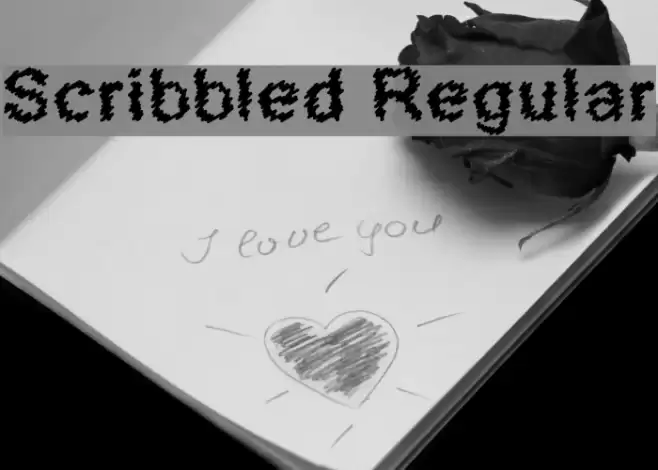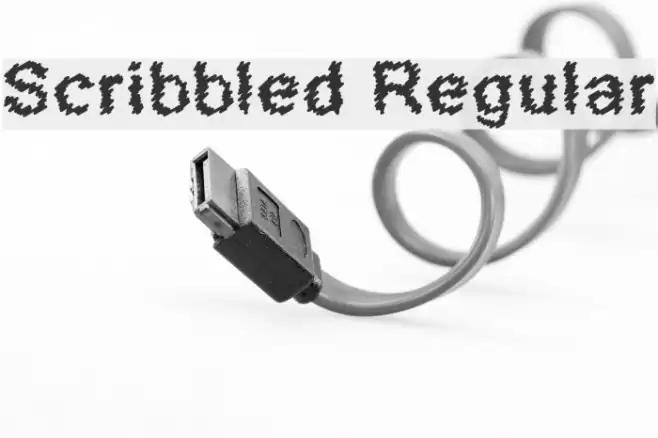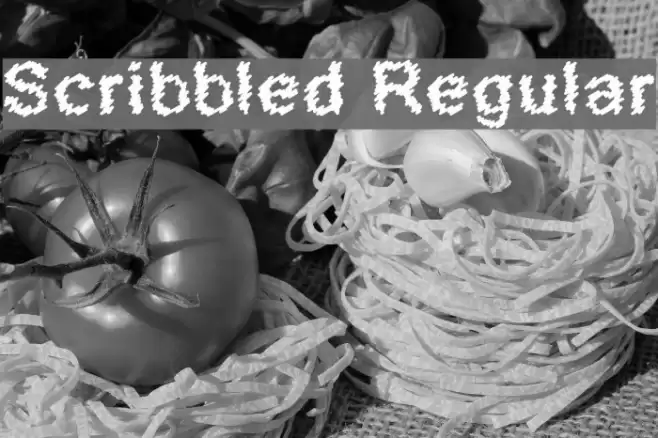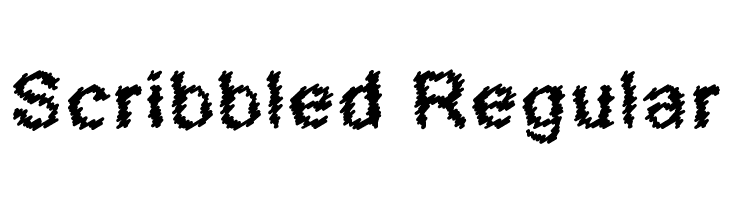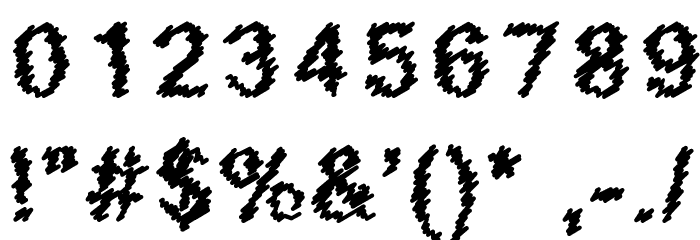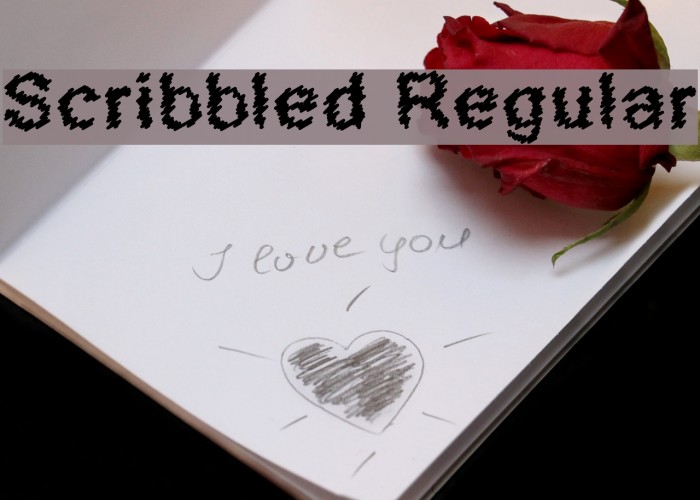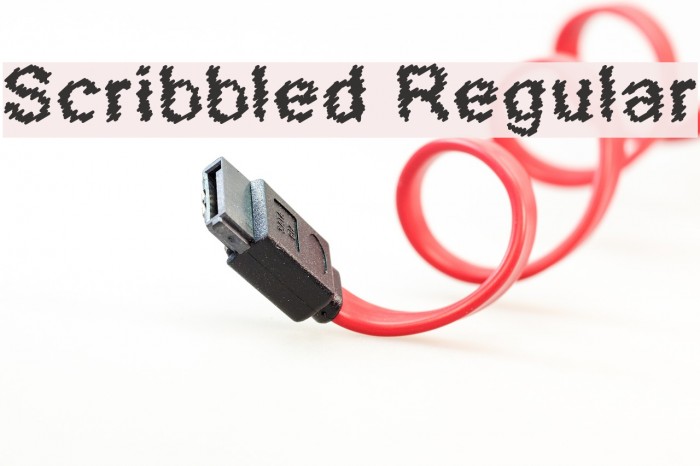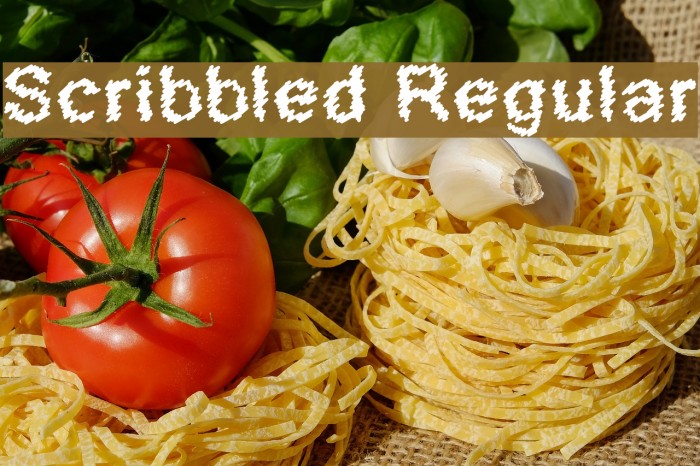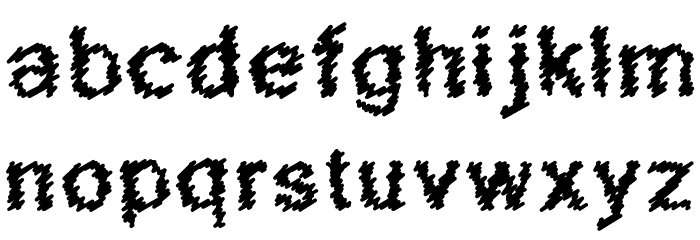
Scribbled Regular Font
Scribbled Regular Description
This font features a unique, hand-drawn appearance with a scribbled texture that gives it a playful and artistic feel. The characters are bold and slightly irregular, mimicking the look of handwriting with a pen or marker. Each letter has a distinct, jagged edge, adding to the overall dynamic and energetic style. The font maintains a consistent weight throughout, ensuring readability while still offering a creative flair. Its distinctive style makes it suitable for projects that require a personal touch or a casual, informal vibe.
A bold, scribbled font with a hand-drawn, artistic style.
- Proposed Projects: Ideal for creative projects such as posters, greeting cards, children's books, and artistic branding.
- Use Case: Headlines, Logos, Artistic projects